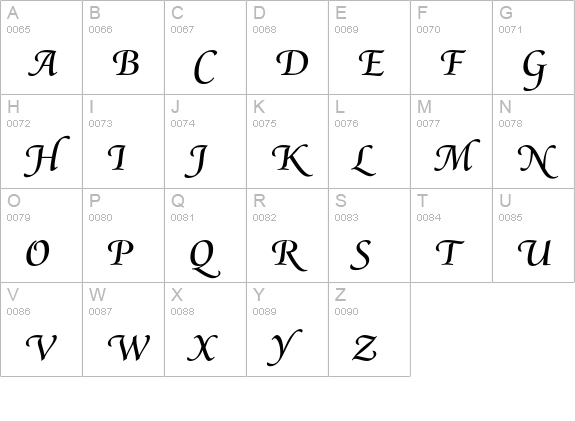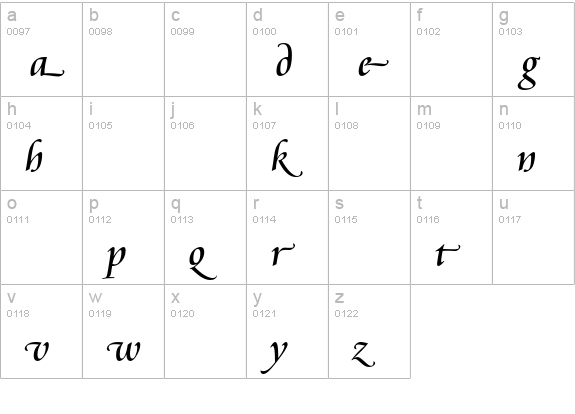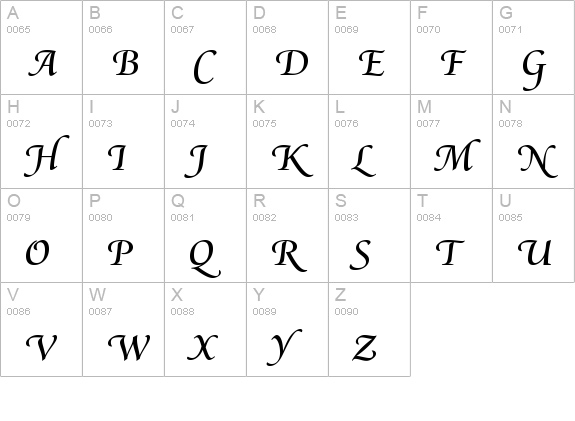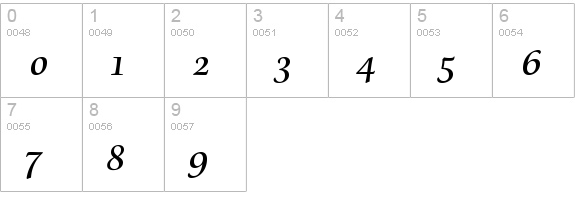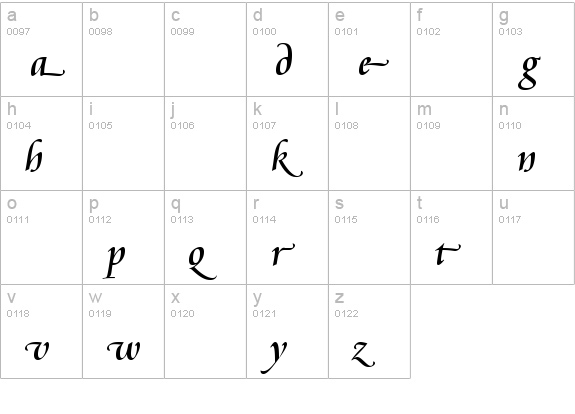
Cataneo Swash Font Details
Cataneo Swash is a stunning and elegant font that exudes sophistication and charm. With its delicate swashes and intricate details, this font is perfect for adding a touch of luxury to any project. Whether you're designing wedding invitations, branding materials, or social media graphics, Cataneo Swash will elevate your design to the next level. What's even better is that Cataneo Swash is available for free download at FontsMarket.com. This means that you can easily access this beautiful font without any cost, making it a fantastic option for both personal and commercial projects. Don't miss out on the opportunity to enhance your designs with the timeless beauty of Cataneo Swash. Download it today and see the difference it can make in your creative endeavors.